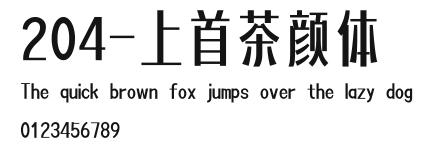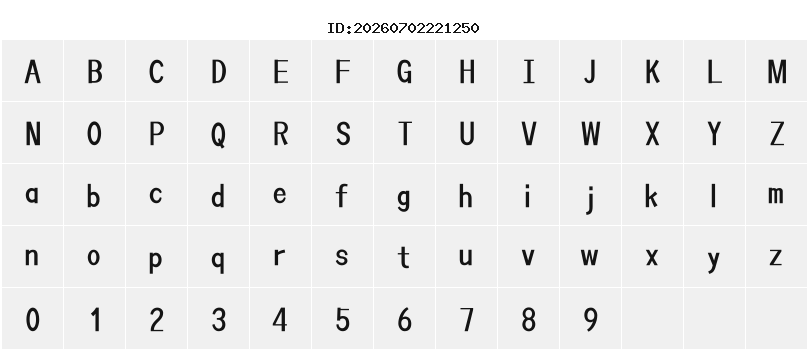
About 204-上首茶颜体.ttf
204-上首茶颜体.ttf is a modern, elegant sans-serif font designed for ultimate readability and visual harmony. Perfect for branding, headlines, web design, and print materials.